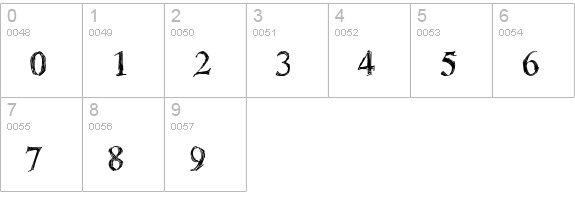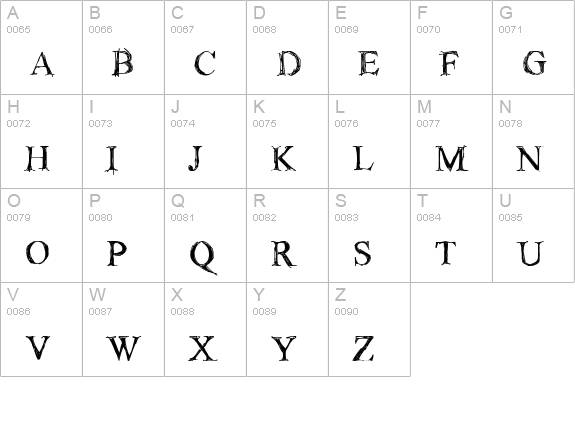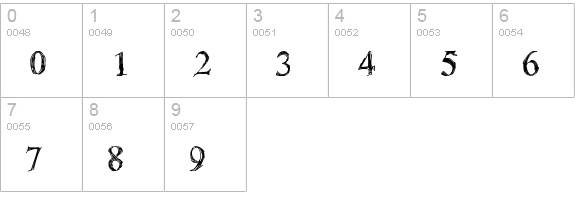
!Sketchy Times Bold Font Details
!Sketchy Times Bold is a strong, high-contrast variant in the !Sketchy typeface family \xE2\x80\x94 well suited to headlines, attention-grabbing titles, and strong calls-to-action.
Introducing !Sketchy Times Bold font, a playful and whimsical typeface that adds a touch of creativity to any project. This bold and dynamic font is perfect for making a statement or adding a fun element to your designs. With its hand-drawn style and quirky flair, !Sketchy Times Bold is sure to grab attention and stand out from the crowd. What's even better is that this font is available for free download at FontsMarket.com. You can easily access this unique typeface and incorporate it into your work without any hassle. Whether you're designing posters, greeting cards, or social media graphics, !Sketchy Times Bold font is a versatile choice that will bring a fresh and exciting look to your projects. Don't miss out on this fantastic opportunity to enhance your designs with this free and fabulous font!